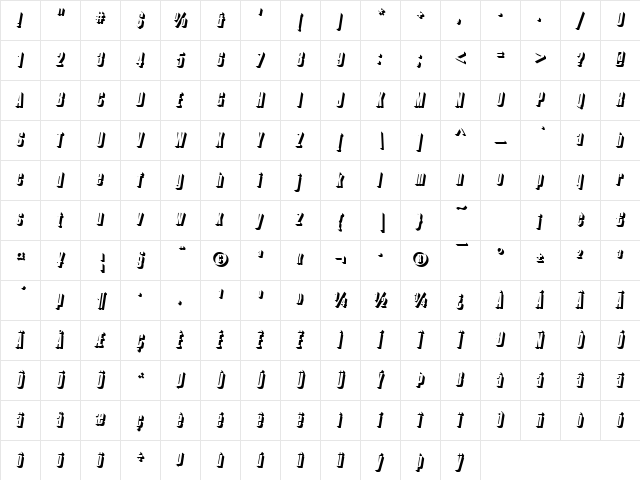
Complete URWColomboOnlShaDReg Italic glyph index. Displaying only characters natively supported by URWColomboOnlShaDReg Italic font.
URWColomboOnlShaDReg is a composed and adaptable typeface that performs quietly and consistently across a wide range of design contexts. The slanted form adds forward momentum and visual energy.